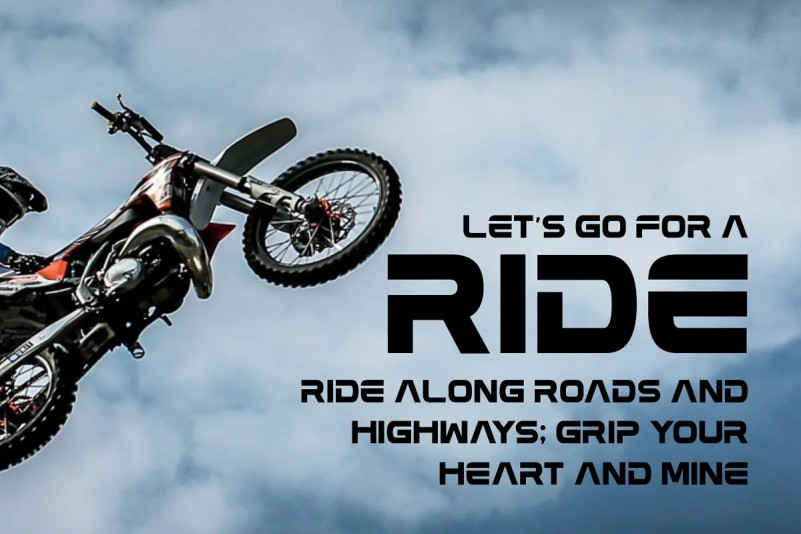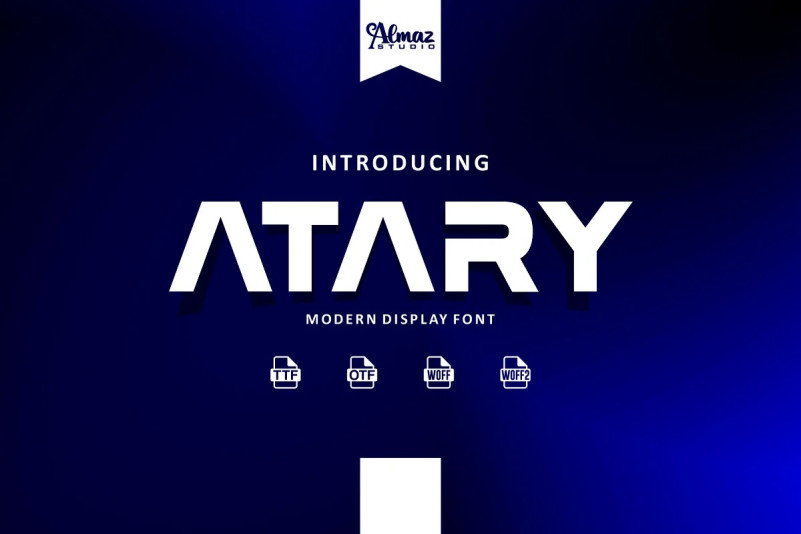
Atary Font
Atary Display Font is a modern and minimalist display font. The combination of minimal and geometric elements renders a modern design. Atary is clean and modern caps, thereby creating more variability. This is irreproachable sans serif to diversify your headlines, branding visual identity. It’s a professional version which was complicated hand-made and computer-generated graphics, and various revisions. Atary clean lines and sharp edges make it a perfect, after installing on the computer you can create posters, web graphics, game graphics, t-shirts, videos, signs, logos and more. Plus, the different weights make it a stellar option for branding and web use looks really beautiful with condensed spacing as well.